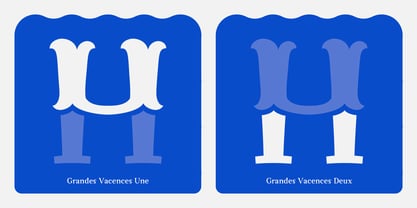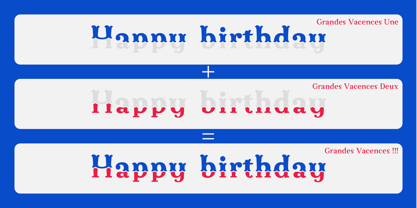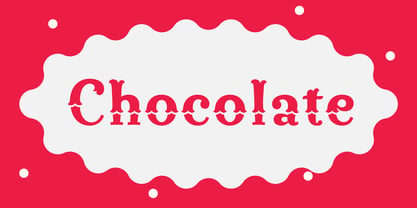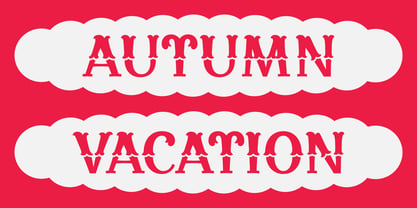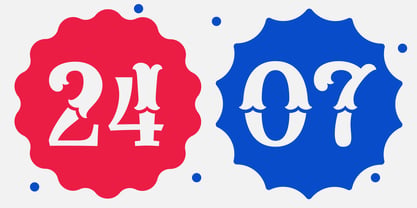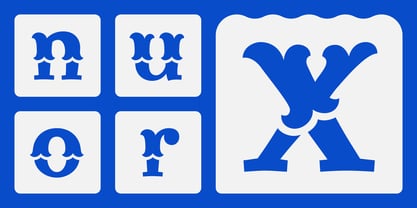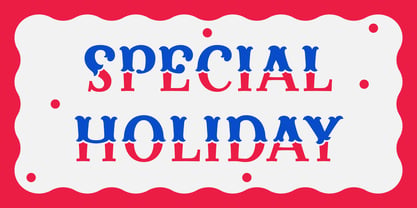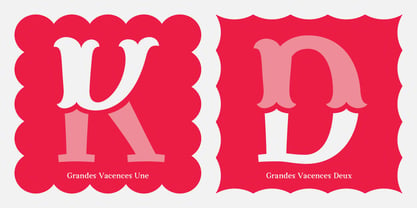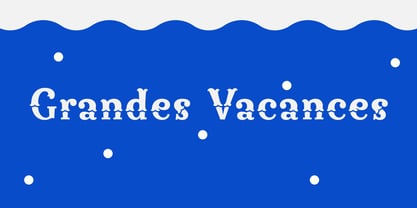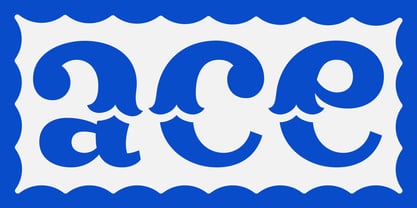
Grandes Vacances
The Grandes Vacances Font Family was designed by Ryoichi Tsunekawa and published by Dharma Type. Grandes Vacances contains 3 styles and family package options. More about this family
• Grandes Vacances Regular
• Grandes Vacances Une
• Grandes Vacances Deux
This wood type is one of the most distinctive Wild West–style Tuscan fonts out there.
No other decorative Tuscan or wood type combines charm and sweetness quite like this font family—bold, playful, and irresistibly cute.